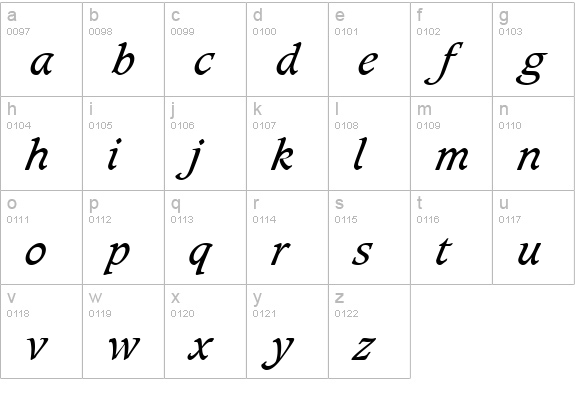
Caxton LT Book Italic Font Details
Caxton LT Book Italic is a comfortable, highly readable, italic variant in the Caxton typeface family \xE2\x80\x94 well suited to long-form body text, articles, and editorial content.
Caxton LT Book Italic font exudes elegance and sophistication with its graceful italic design. The slanted characters convey a sense of movement and fluidity, making this font ideal for adding a touch of refinement to your projects. Whether used for headings, quotes, or body text, Caxton LT Book Italic brings a touch of class to any design. What makes this font even more appealing is that it is freely available to download at FontsMarket.com. Now you can elevate your designs without breaking the bank. Don't miss out on the opportunity to enhance your projects with the timeless beauty of Caxton LT Book Italic font. Download it today and see the difference it can make in your creative endeavors.